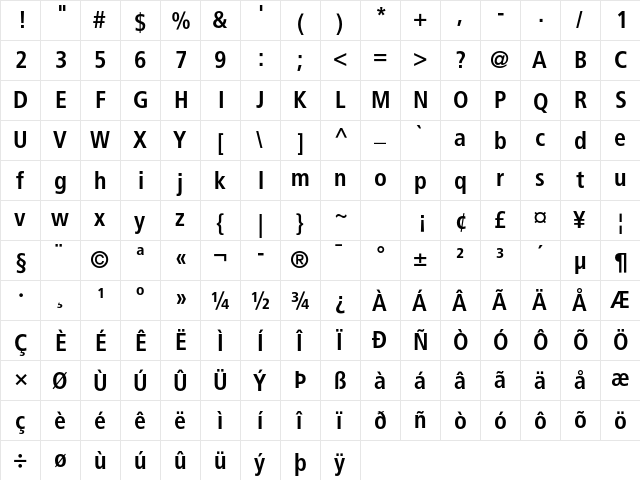
Frutiger LT Std 67 Bold Condensed
| Designer | Adrian Frutiger |
Design Context for Frutiger LT Std Typeface
Frutiger LT Std is a composed and adaptable typeface that performs quietly and consistently across a wide range of design contexts. Its bold stroke weight gives it real presence on the page. The condensed width makes it efficient for tight spaces without sacrificing legibility.